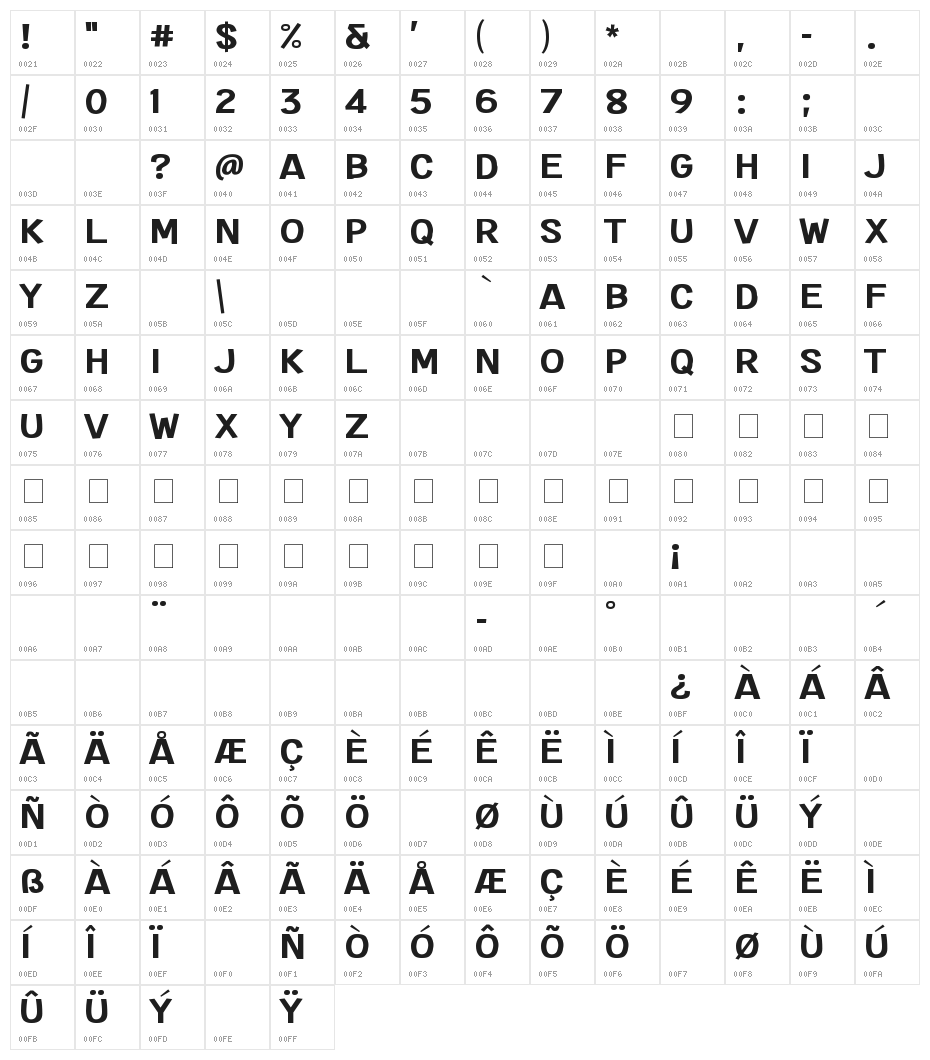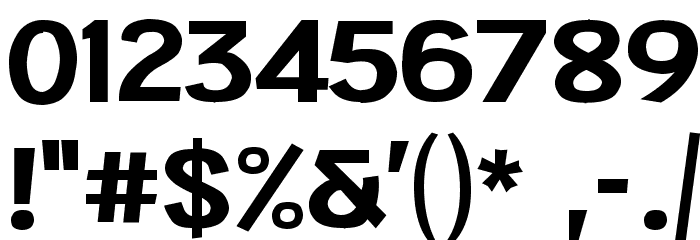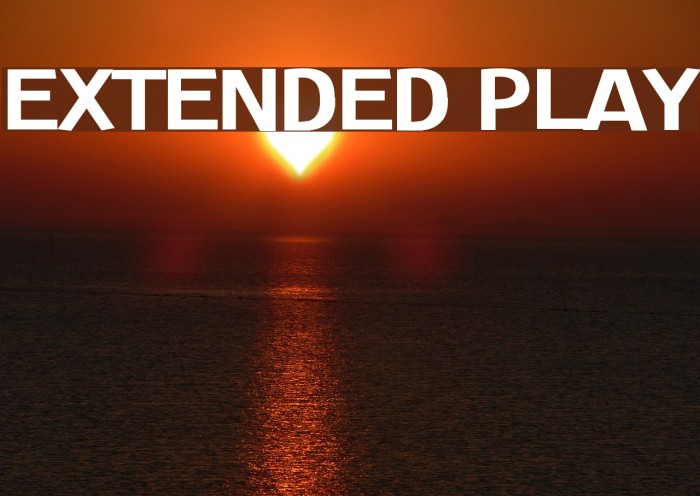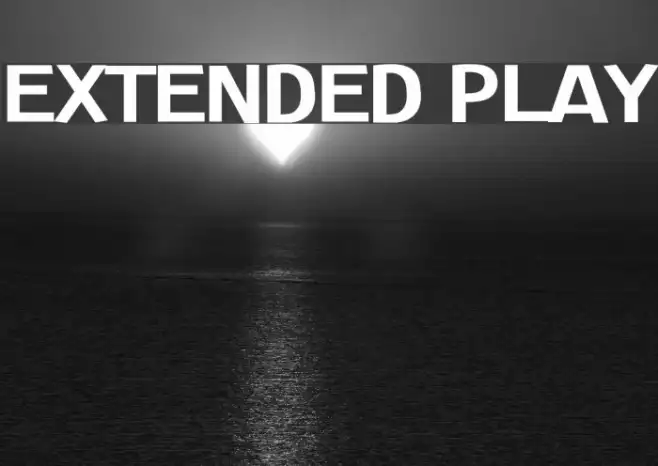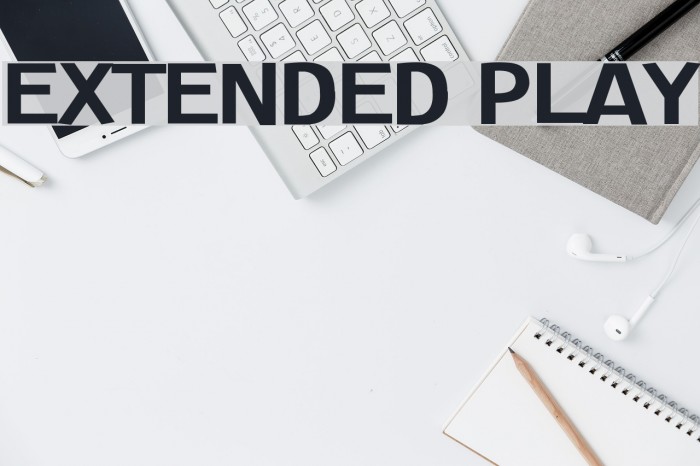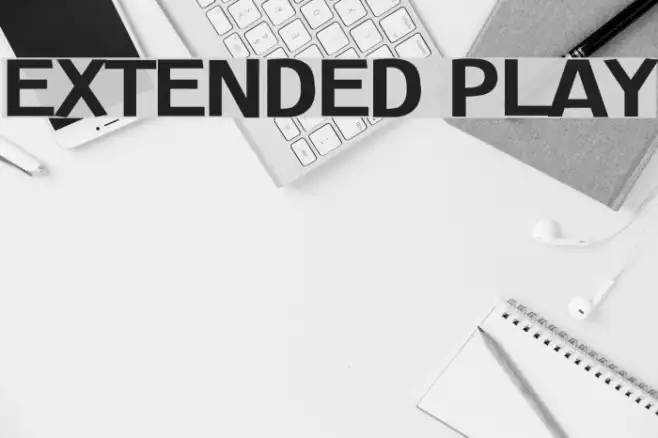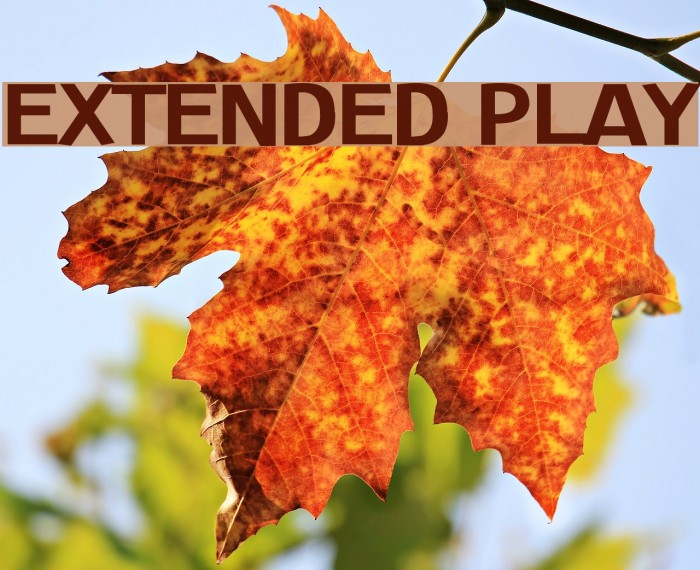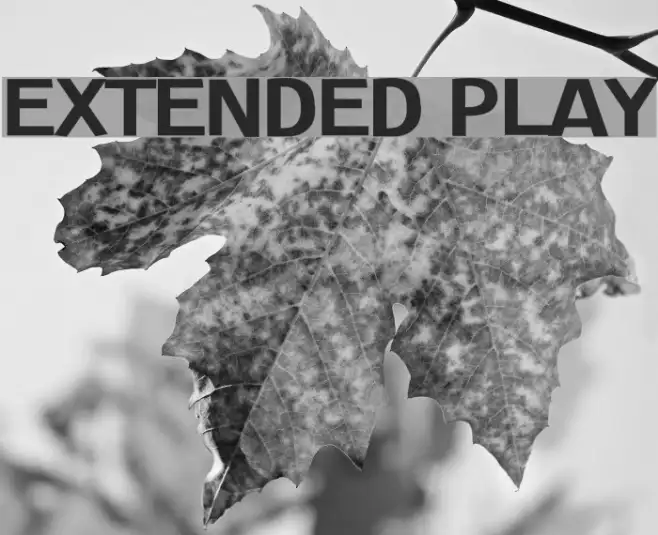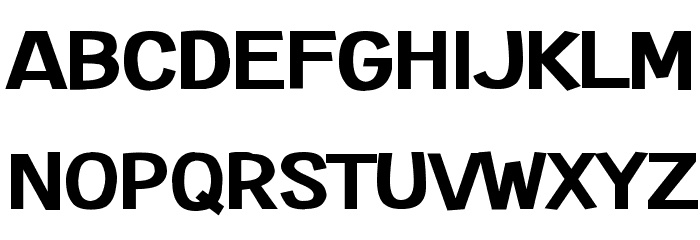
Extended Play Font
This font features bold, geometric letterforms with a strong presence, making it ideal for impactful designs. The uppercase letters are uniform in height, with consistent stroke widths that convey a sense of stability and modernity. The numerals are equally bold, maintaining the same weight and style as the letters, ensuring a cohesive look across all characters. The special characters are designed to match the boldness of the alphabet, providing a complete and versatile set for various design needs. The overall style is clean and straightforward, suitable for projects that require a strong visual impact.
| Proposed Projects | Ideal for branding, headlines, posters, and any design requiring a strong, modern typeface. |